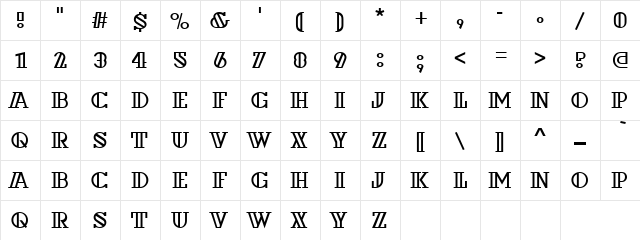
Deos Regular Font Preview
Deos Regular
Deos Regular Font Details
Design Context for Deos Typeface
Deos is a composed and adaptable typeface that performs quietly and consistently across a wide range of design contexts.